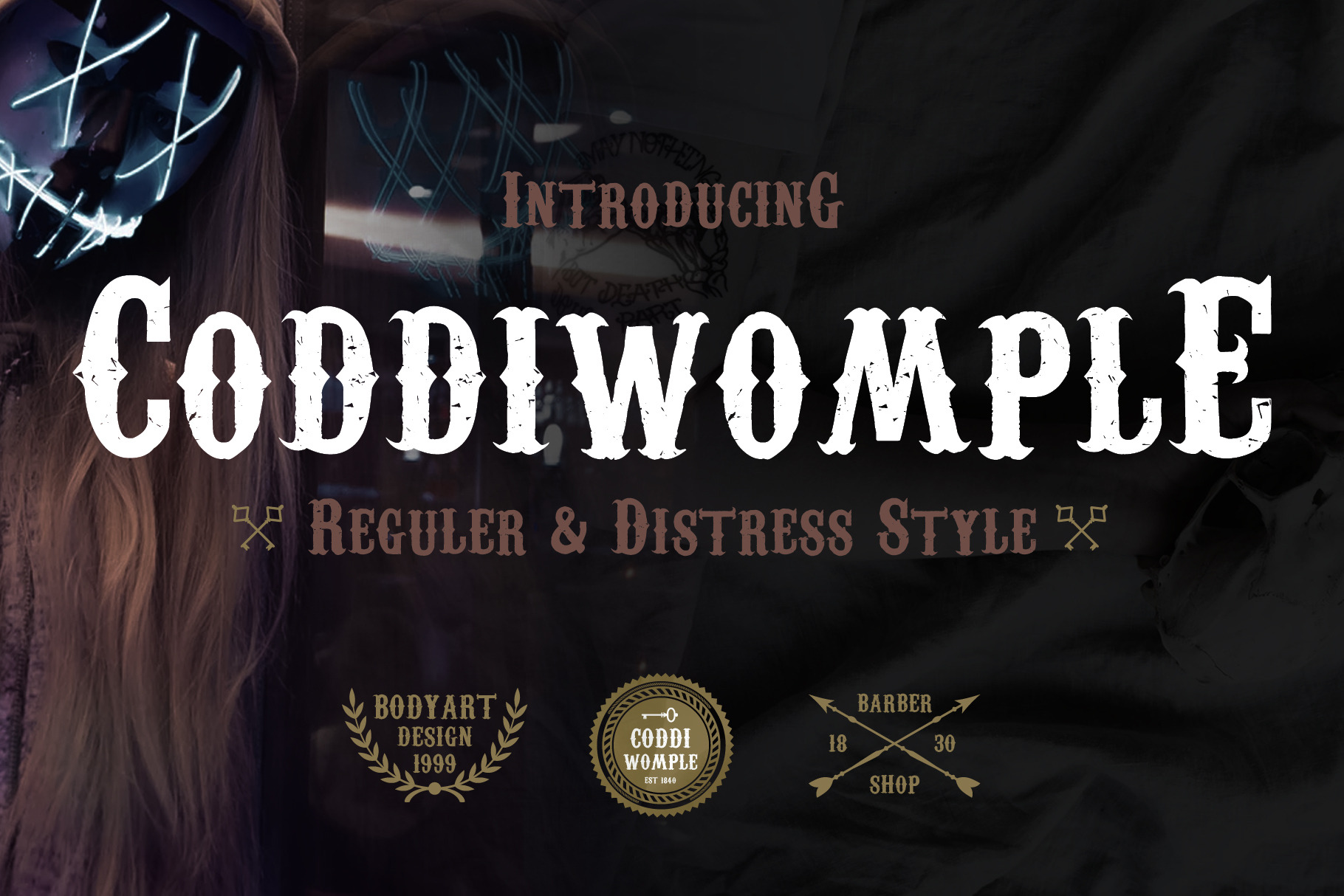
Coddiwomple Old Western Font
Introducing Coddiwomple old western font made carefully handcrafted. The complete type from Caps and Lower Caps, numeric and punctuation. The font comes up with two style, Coddiwomple Regular and Coddiwomple Distress.
Font features:
- All Caps and Small caps for lower case keyboard
- Numeric